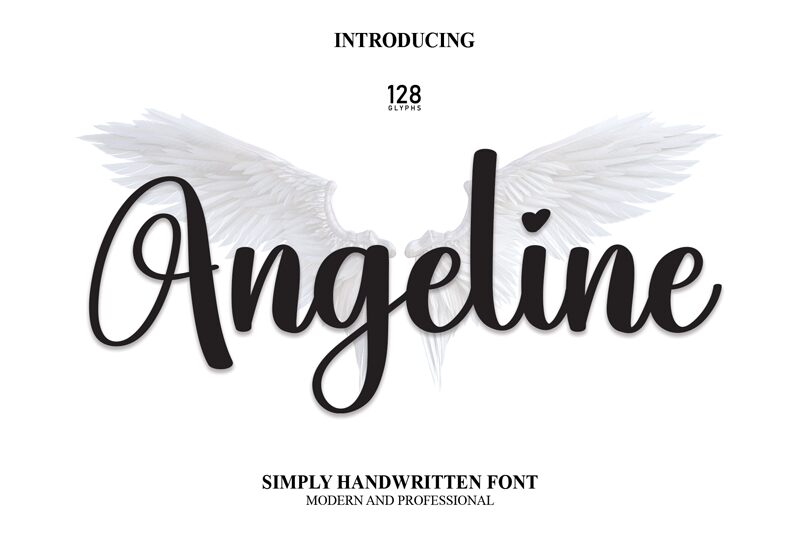
Angeline
Angeline, a masterpiece from Scratchones, is a calligraphy font that exudes elegance and versatility. With its flowing lines and organic forms, Angeline evokes the charm of handwritten correspondence tailored for the digital age. Ideal for invitations, branding, and artistic projects, it seamlessly adapts to both classic and contemporary designs. Its unique characteristics ensure that every creation stands out with a personal touch that captures the essence of true craftsmanship.
Let Angeline transform your work with its timeless style and creative potential.